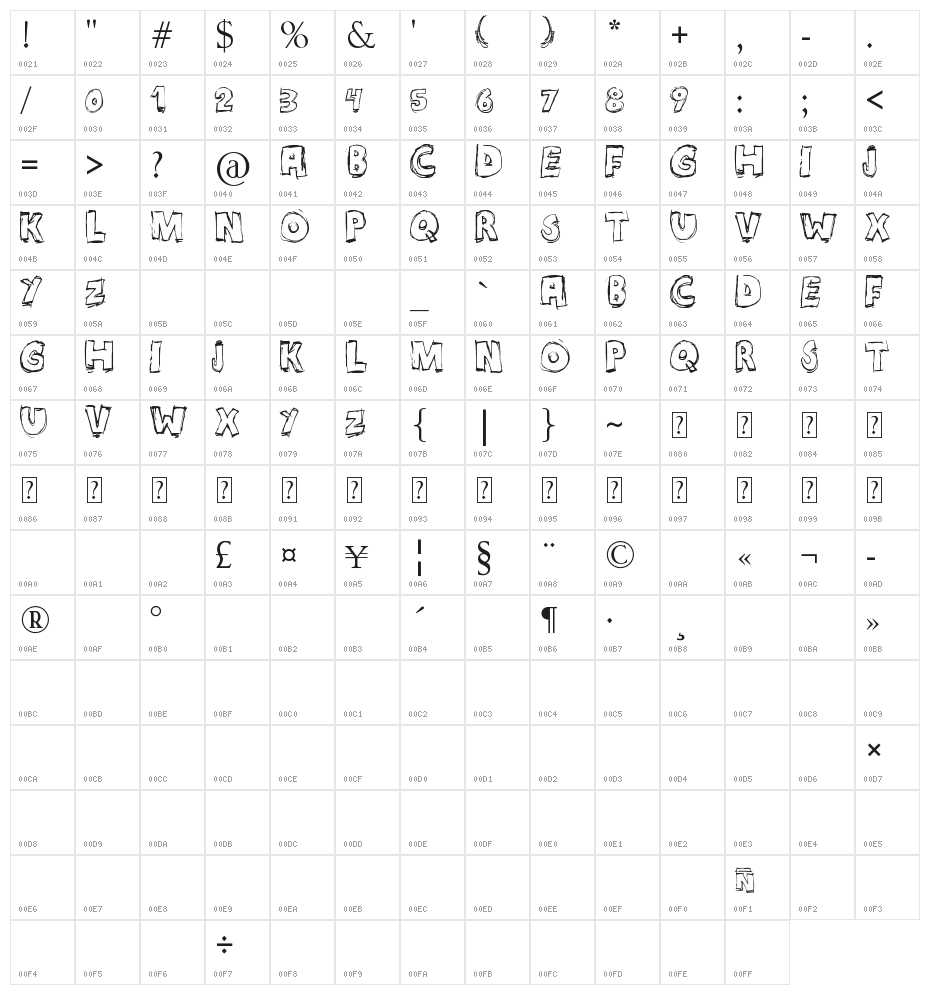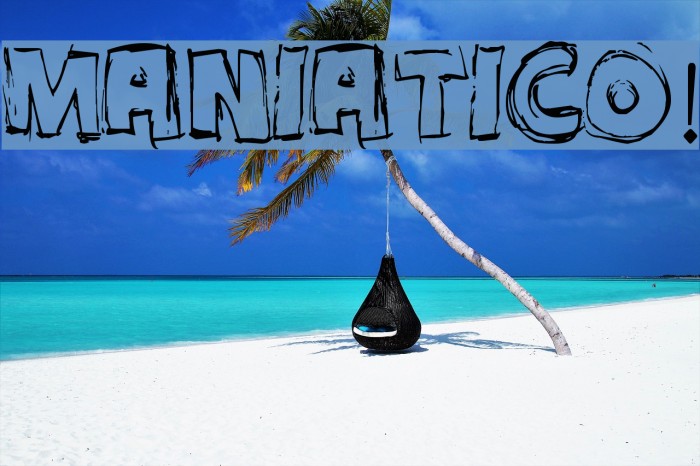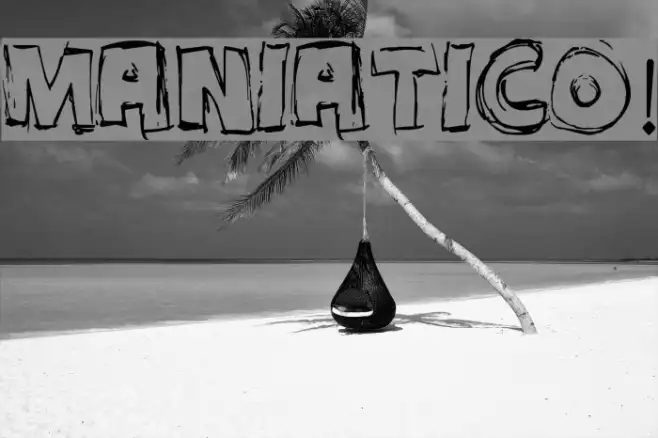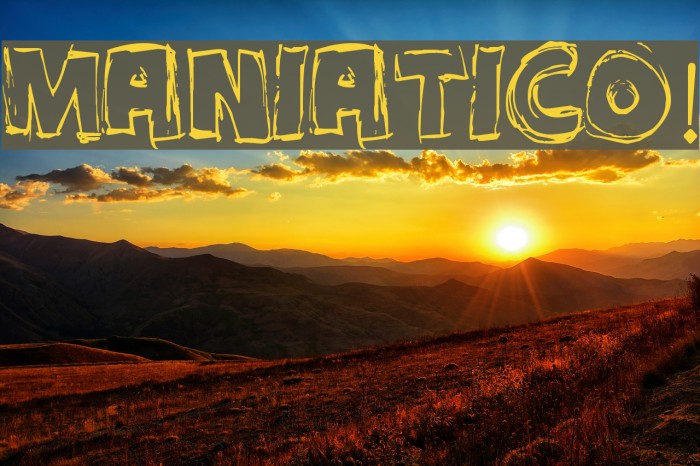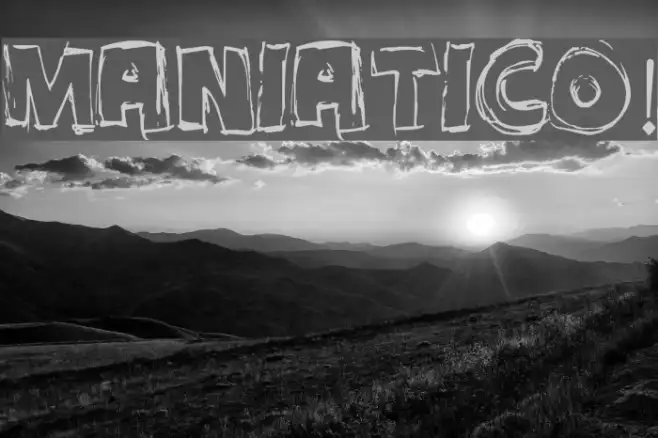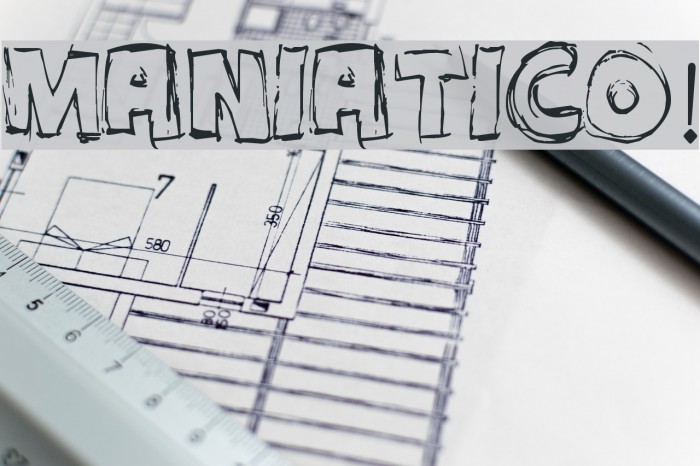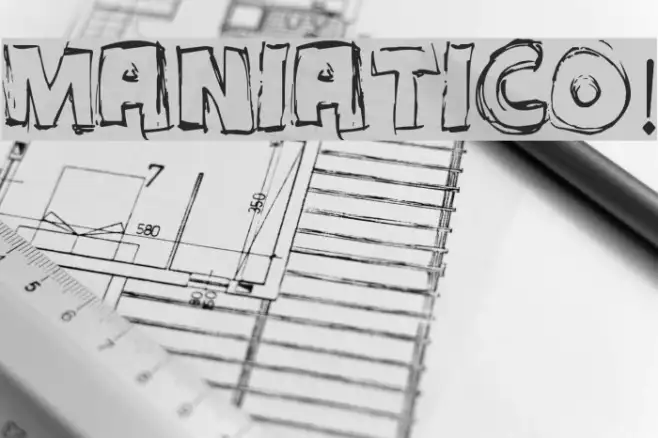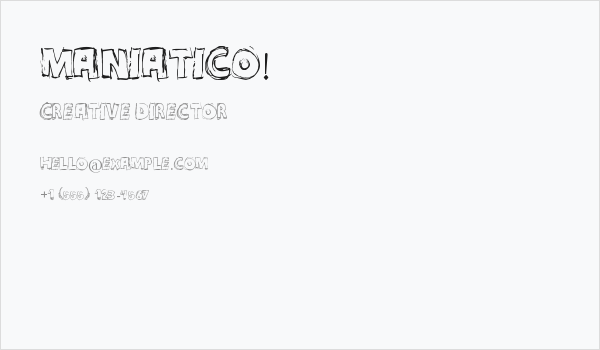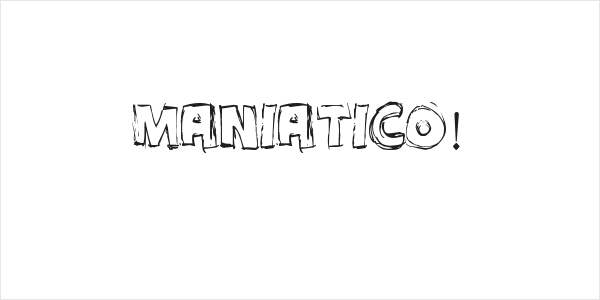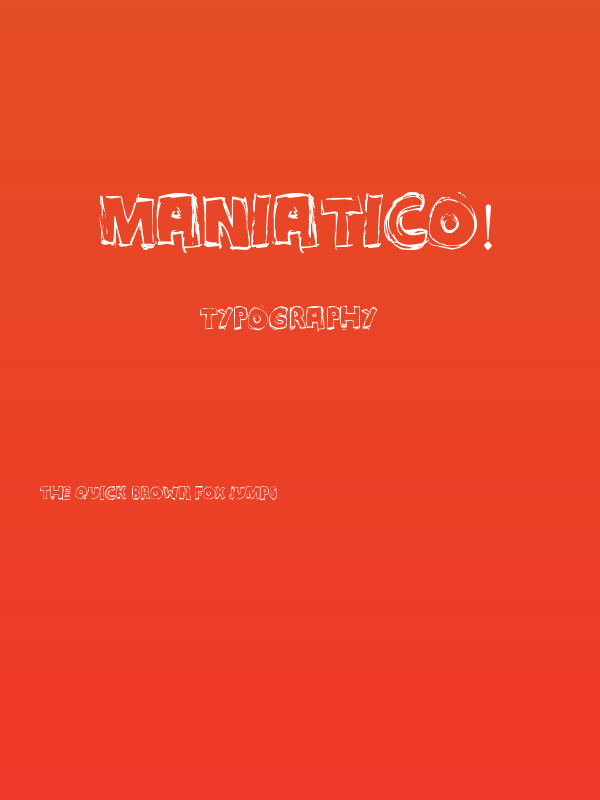
MANIATICO! Font
MANIATICO! Description
This font exhibits a bold and expressive style, characterized by its rough, hand-drawn appearance. The letters are outlined with a sketch-like quality, giving them a dynamic and energetic feel. Each character appears to have been drawn with a brush or marker, featuring uneven strokes and a slightly chaotic aesthetic. The uppercase and lowercase letters maintain a consistent style, while the numbers and special characters follow the same artistic approach. This font's unique and artistic design makes it suitable for projects that require a creative and informal touch.
| Proposed Projects | Ideal for comic book titles, posters, graffiti art, and creative branding. |